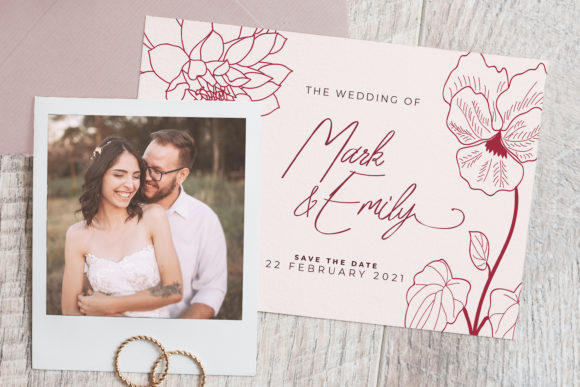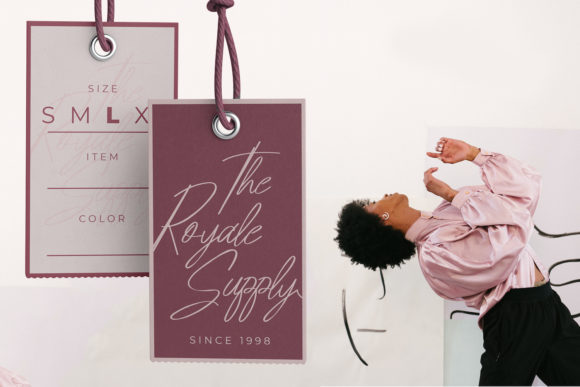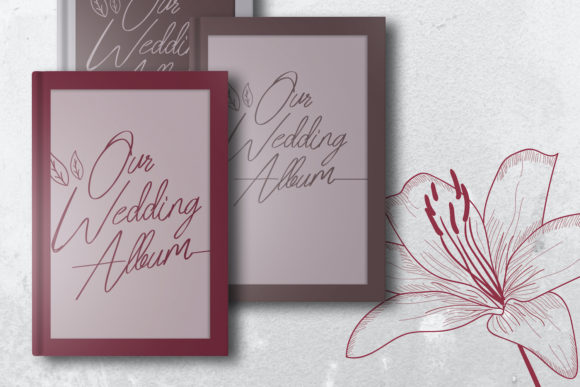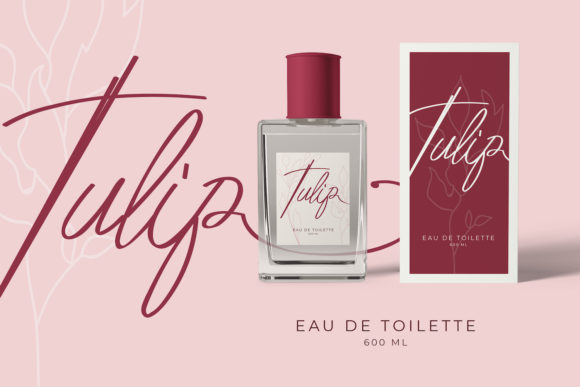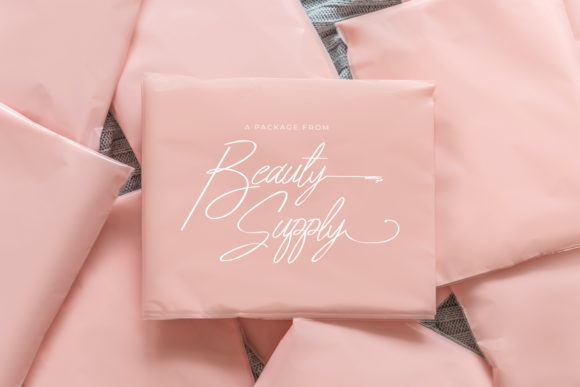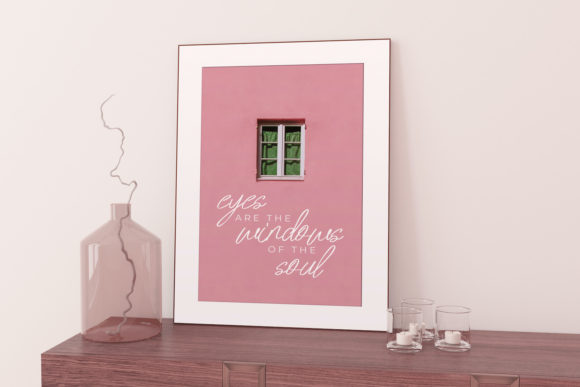
The Perfect Brush Stroke: Unlocking the Magic of Awely Shiny Font
There’s something special about holding a handwritten note or card, isn’t there? The way the ink bleeds onto the paper, the imperfections that make it uniquely yours. It’s a feeling that’s hard to replicate with digital tools, but that’s exactly what makes Awely Shiny Font so magical. This beautifully crafted handwritten font is designed to add a touch of elegance to any design project, from wedding invitations to business cards.
As a designer, you know how valuable a font like Awely Shiny Font can be. With its varying baseline, smooth lines, and gorgeous glyphs, it’s the perfect addition to any project that needs a handwritten touch. And with PUA encoding, you’ll have access to all the glyphs and swashes you need to create truly stunning designs.
Awely Shiny Font Key Features
- Unique Characteristics: This font features a unique, hand-drawn design with a modern and elegant aesthetic, making it perfect for creative and artistic applications.
Designer Review: Awely Shiny Font
Overall, I found the Awely Shiny Font to be a visually appealing addition to any design project. Here are some of its strengths: ✨
- Elegant and modern aesthetic, perfect for luxury or high-end branding
- High contrast and clear letterforms make it easy to read, even at smaller font sizes
- Supports a wide range of languages, including Latin, Cyrillic, and Greek scripts
However, I did encounter some limitations: ⚠️
- Lack of bold or condensed weights may limit its usability in certain design contexts
- May not be suitable for text-heavy designs, as the font’s openness can make it feel cluttered
- Does not include any alternate characters or ligatures, which can limit its expressiveness
Overall, I think the Awely Shiny Font is a great choice for designers looking to add a touch of sophistication to their projects. While it may have some limitations, its unique aesthetic and clear typography make it a solid addition to any design library.
Awely Shiny Font is ideal for:
- Formal presentations and reports
- Choose a bold and colorful background to contrast with the Awely Shiny Font.
- Select a few inspirational quotes that resonate with your audience.
- Use the Awely Shiny Font to create a visually appealing typography.
- Add a few decorative elements like flowers or stars to give it a whimsical feel.
- Pair the Awely Shiny Font with a modern and minimalist design aesthetic for a clean and sophisticated look.
- Add a touch of whimsy by incorporating illustrations or hand-drawn elements.
- Experiment with different color combinations to create a unique and eye-catching design.
- Choose a simple and bold shape that complements the Awely Shiny Font.
- Select a few keywords or initials that represent your brand.
- Use the Awely Shiny Font to create a custom typography that reflects your brand’s personality.
Project 1: Shiny Quote Cards
Create inspirational quote cards with a touch of elegance using the Awely Shiny Font. This project is perfect for interior designers, event planners, or anyone who wants to add a personal touch to their space.
Project 2: Awely Shiny Logo Design
Design a stunning logo for your business or personal brand using the Awely Shiny Font. This project is perfect for graphic designers, entrepreneurs, or anyone who wants to create a memorable brand identity.